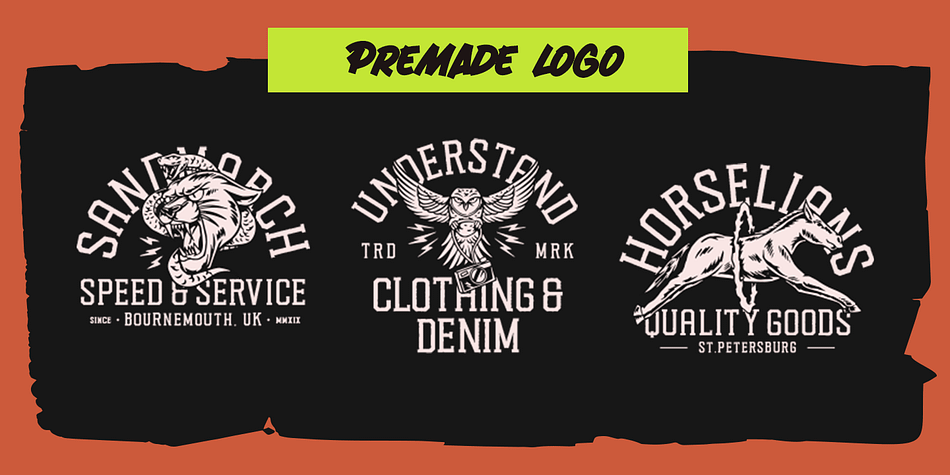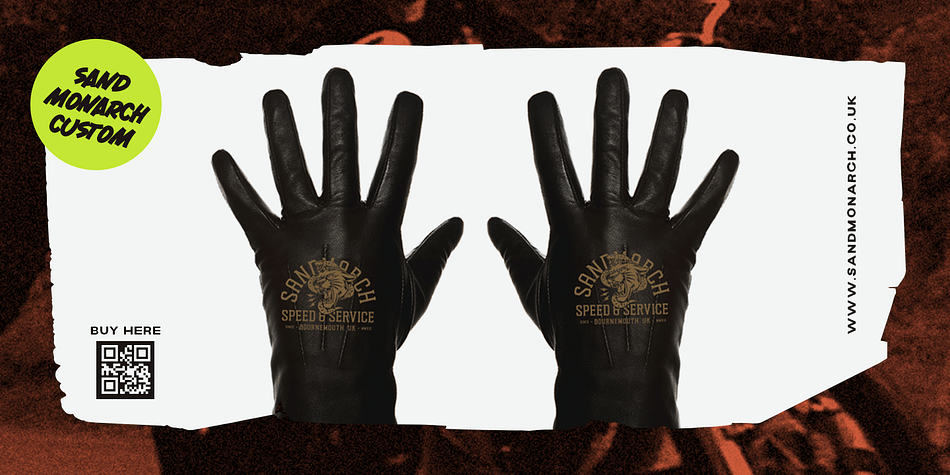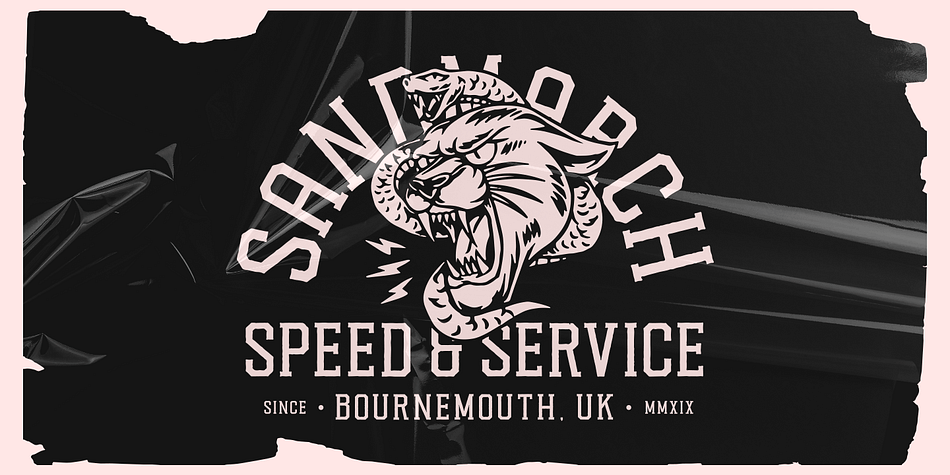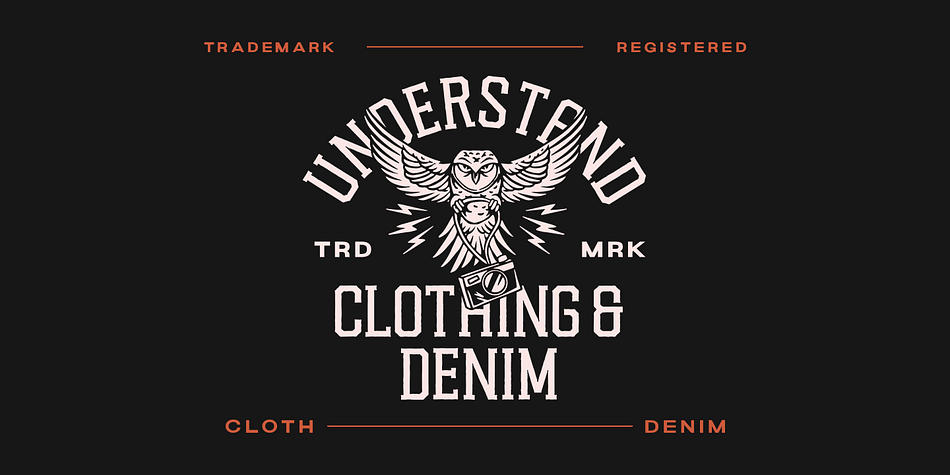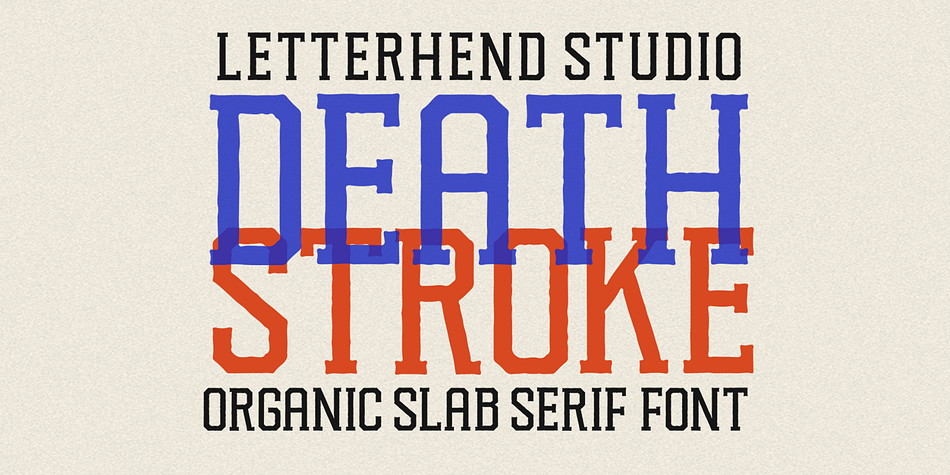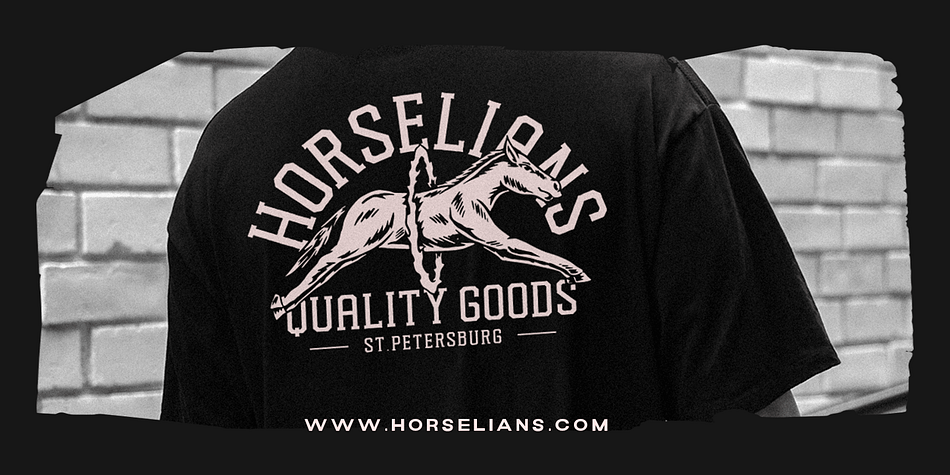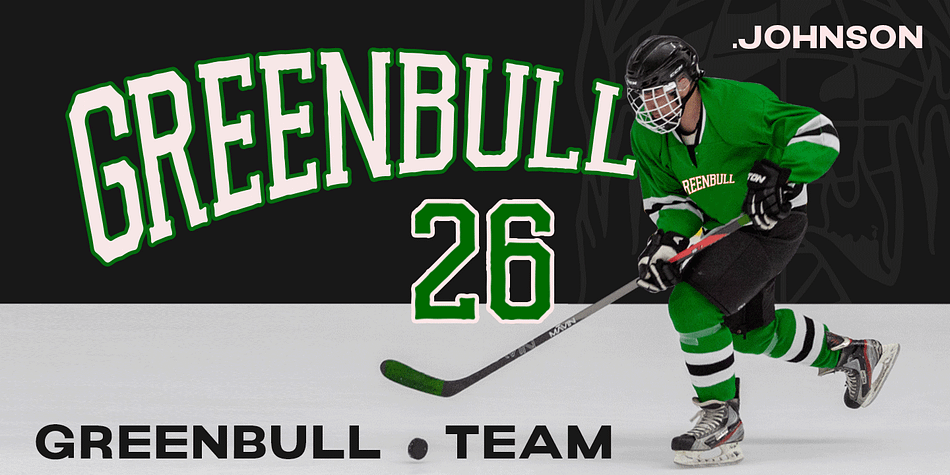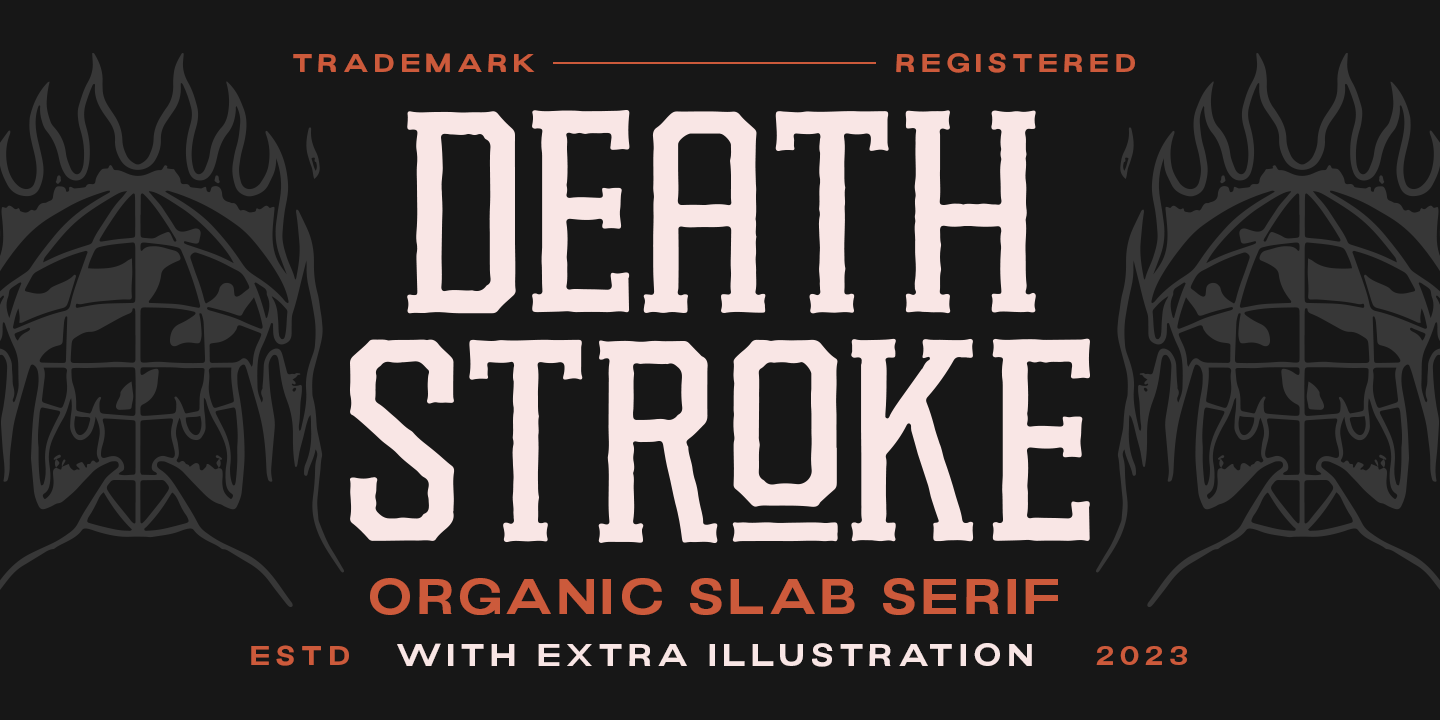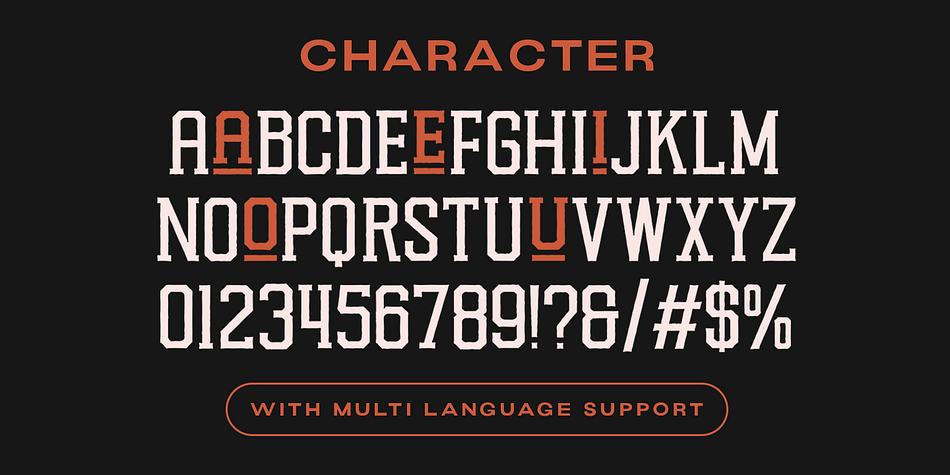
DEATH STROKE
Designed by Hendry Juanda, Death Stroke is a display slab font family published by Letterhend Studio.
Death Stroke is a organic slab serif typeface which is purposely made for headline, display or logotype. It comes with illustration & logo extras. This type of font perfectly made to be applied especially in logo, and the other various formal forms such as invitations, labels, logos, magazines, books, greeting / wedding cards, packaging, fashion, make up, stationery, novels, labels or any type of advertising purpose.
- Illustration extras
- Alternates & ligatures